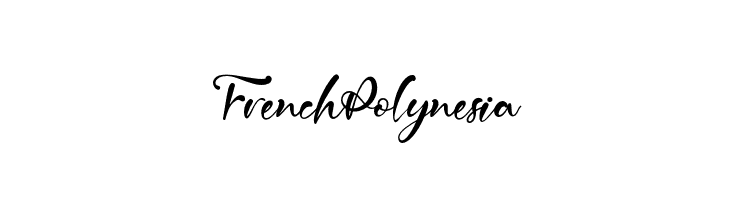
A bold, geometric font with unique cutouts and rounded edges.
A bold, classic serif font with strong strokes and elegant curves.
A playful, energetic script font with a handwritten style.
A charming and fluid script font with elegant, flowing lines and smooth curves.
A playful, bold font with a hand-drawn, whimsical style.
A bold, expressive handwritten font with dynamic brush strokes.
A playful, handwritten-style font with rounded edges and consistent stroke thickness.
An elegant script font with flowing, interconnected letters and high contrast strokes.
A bold, angular, and edgy font with a hand-drawn appearance.
A playful, handwritten font with rounded edges and a friendly style.